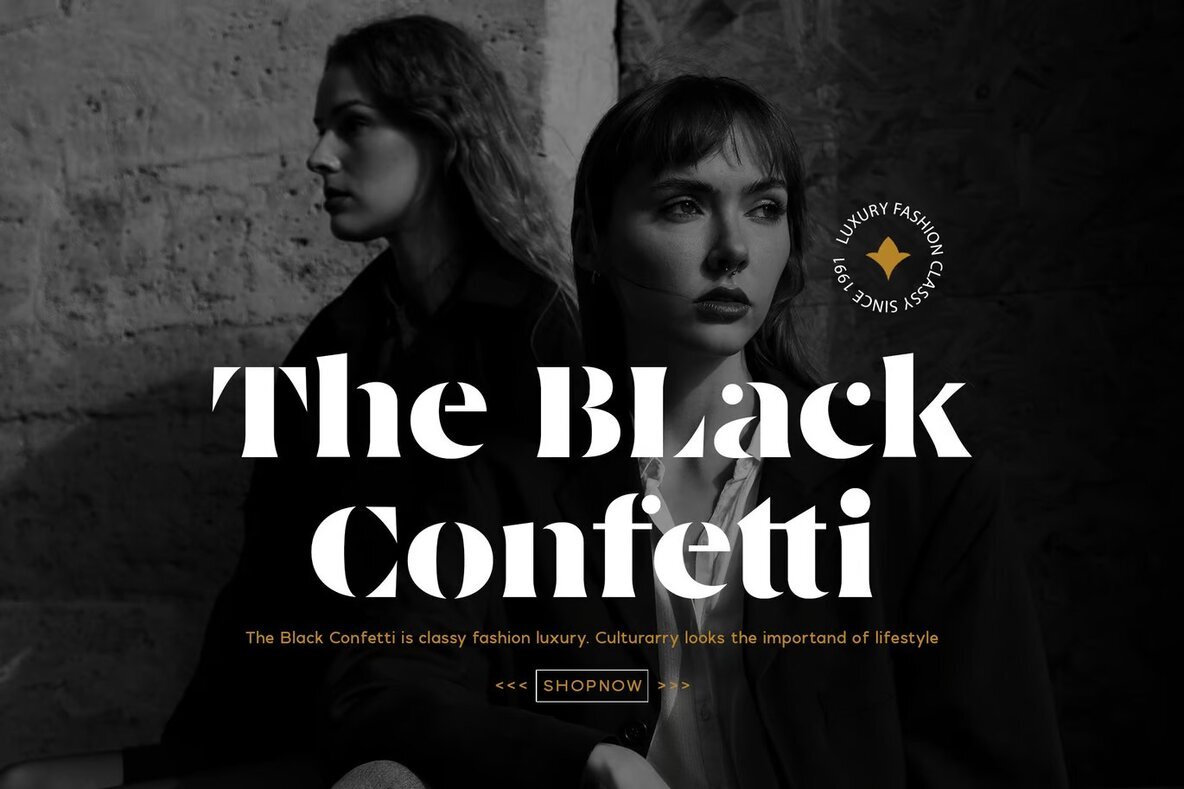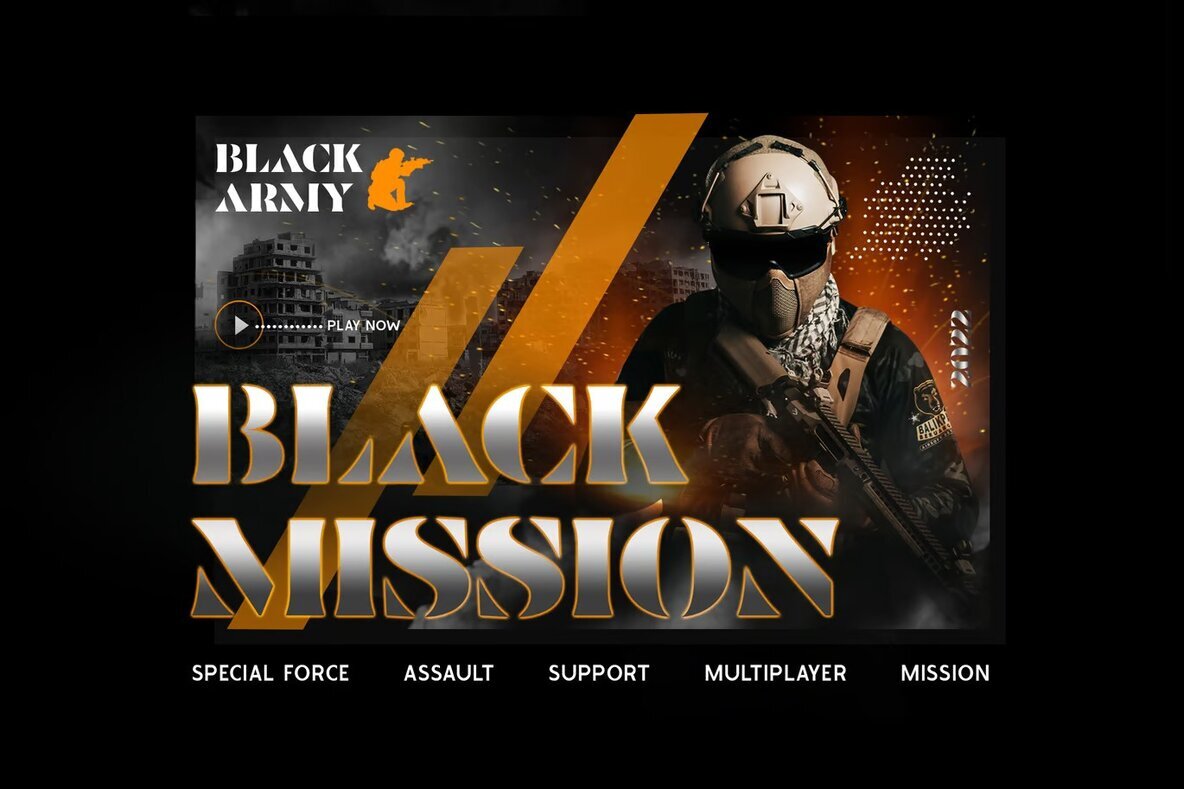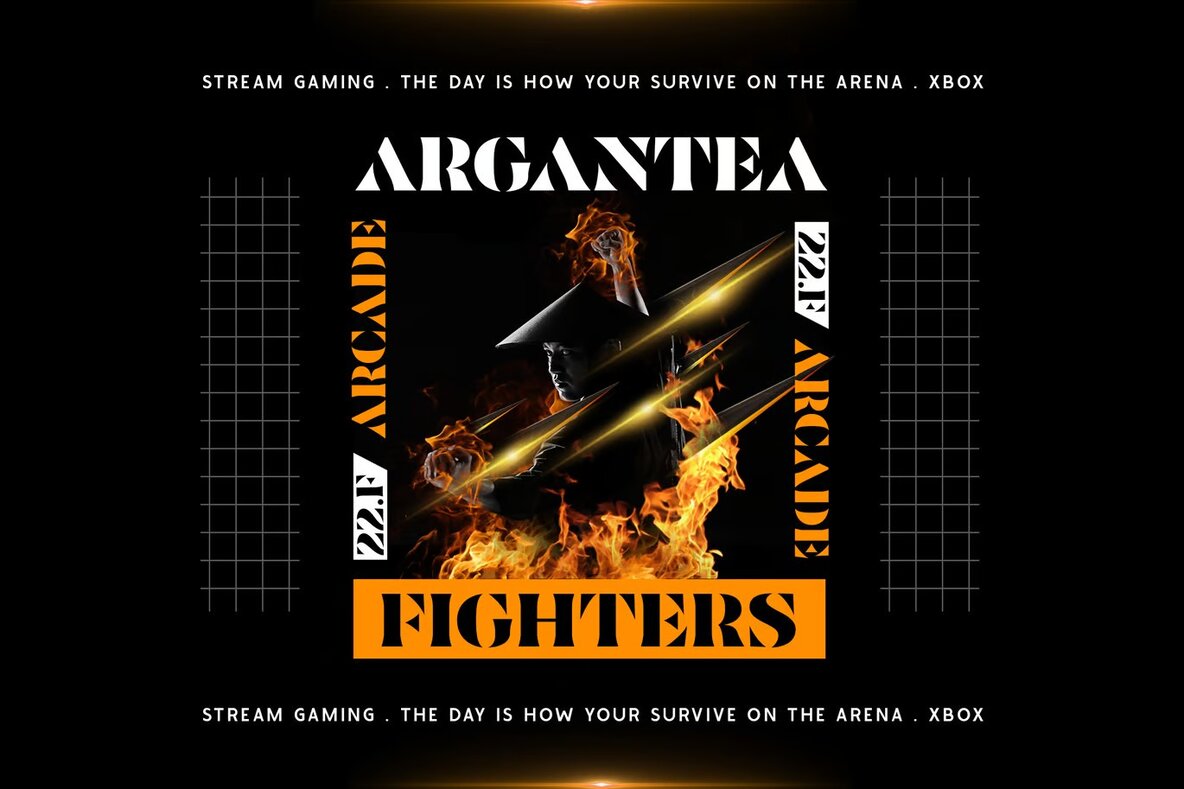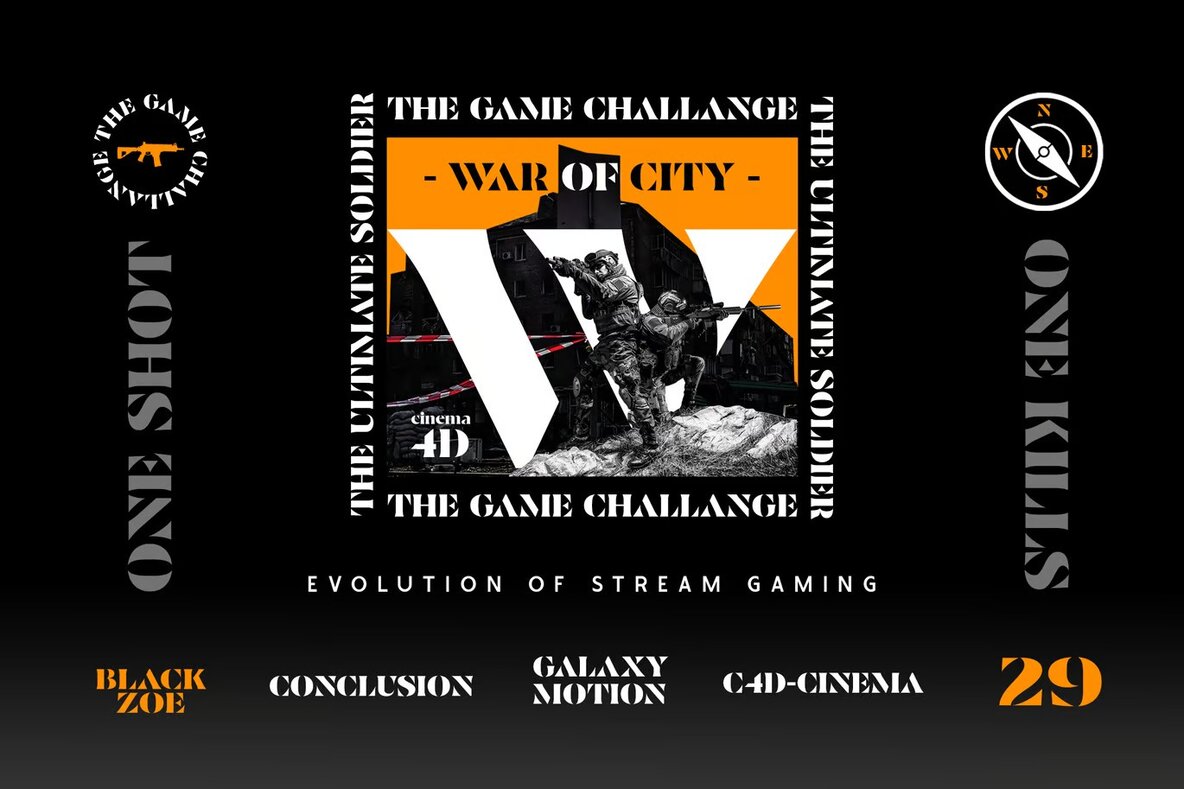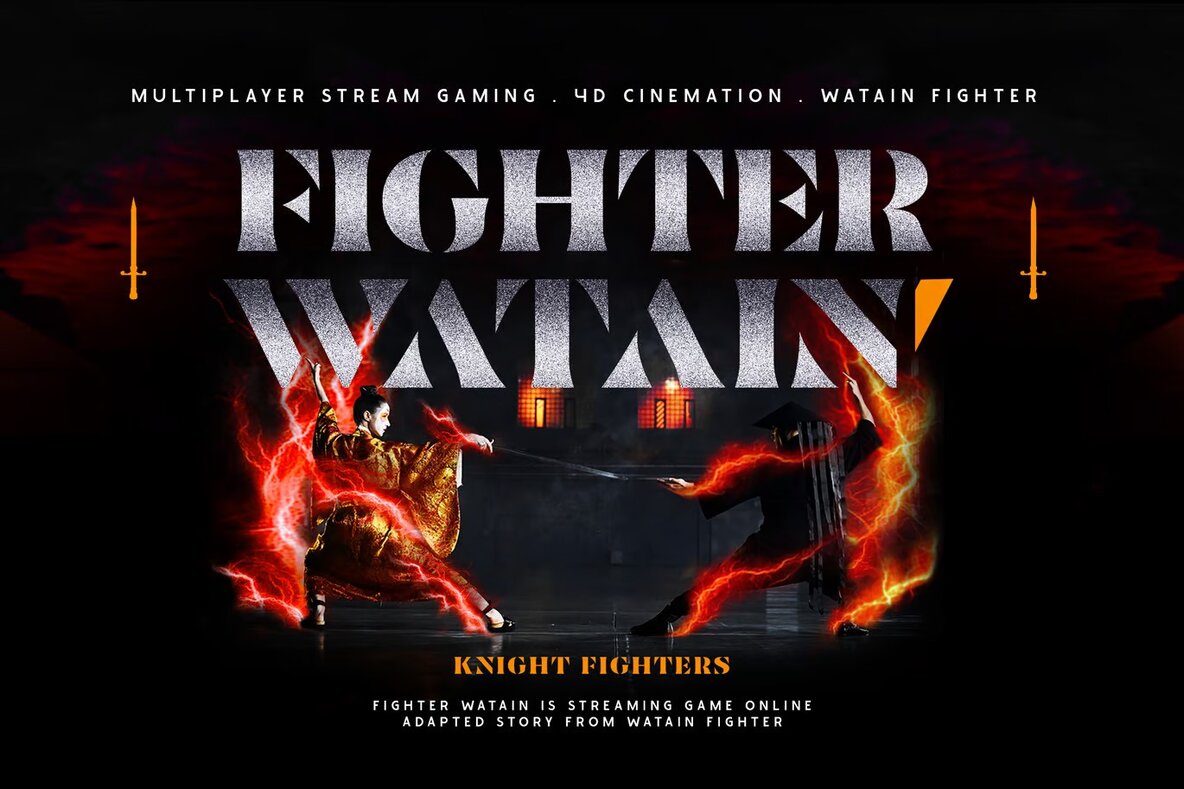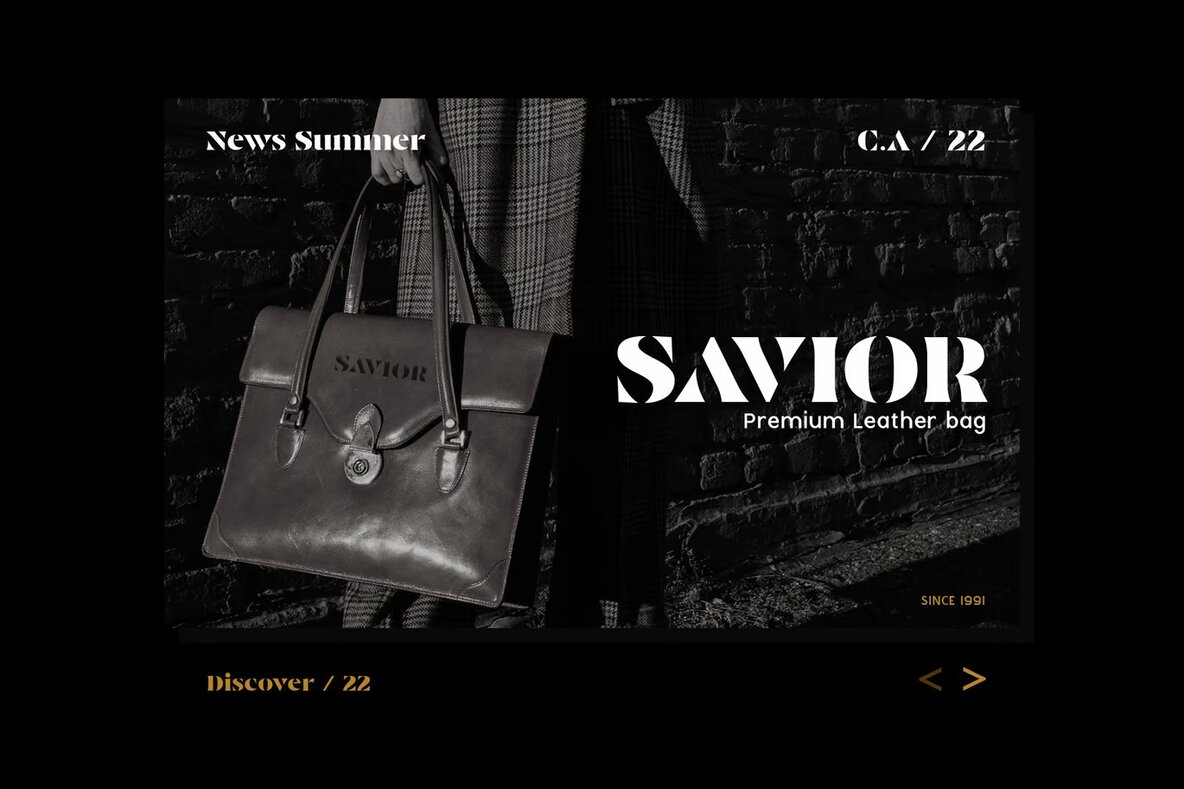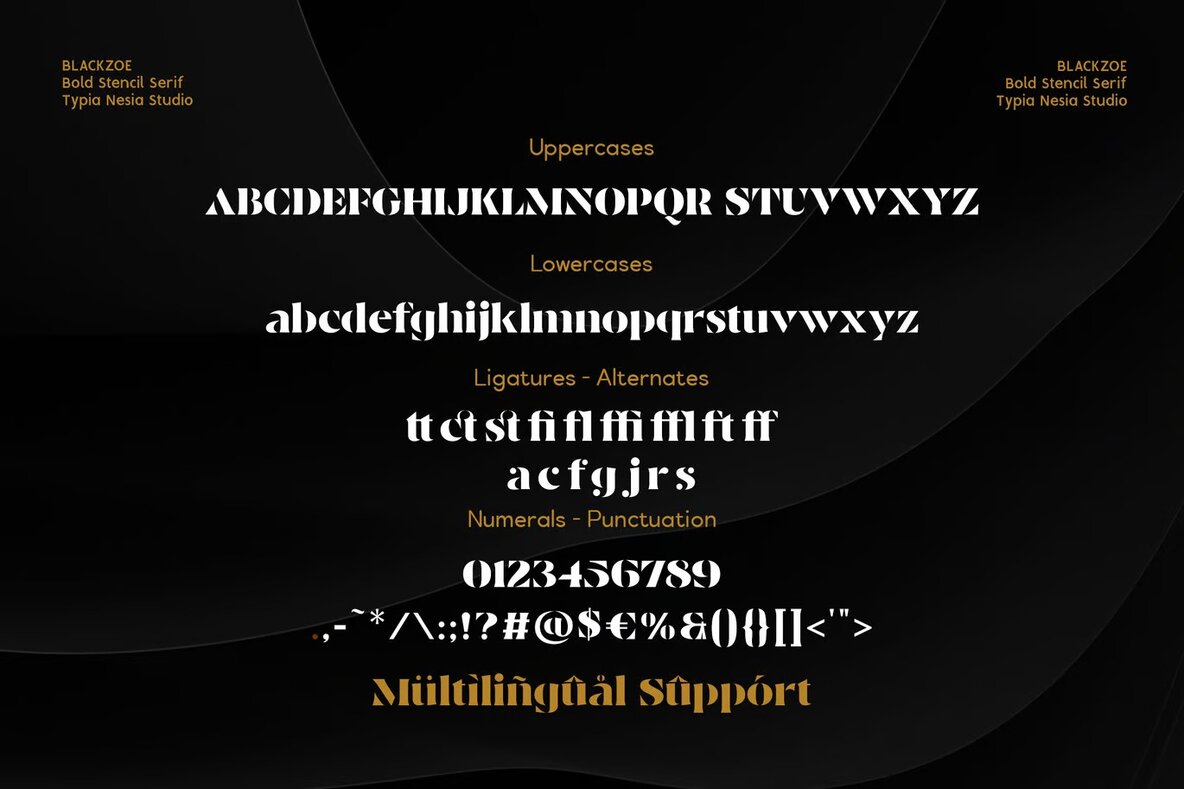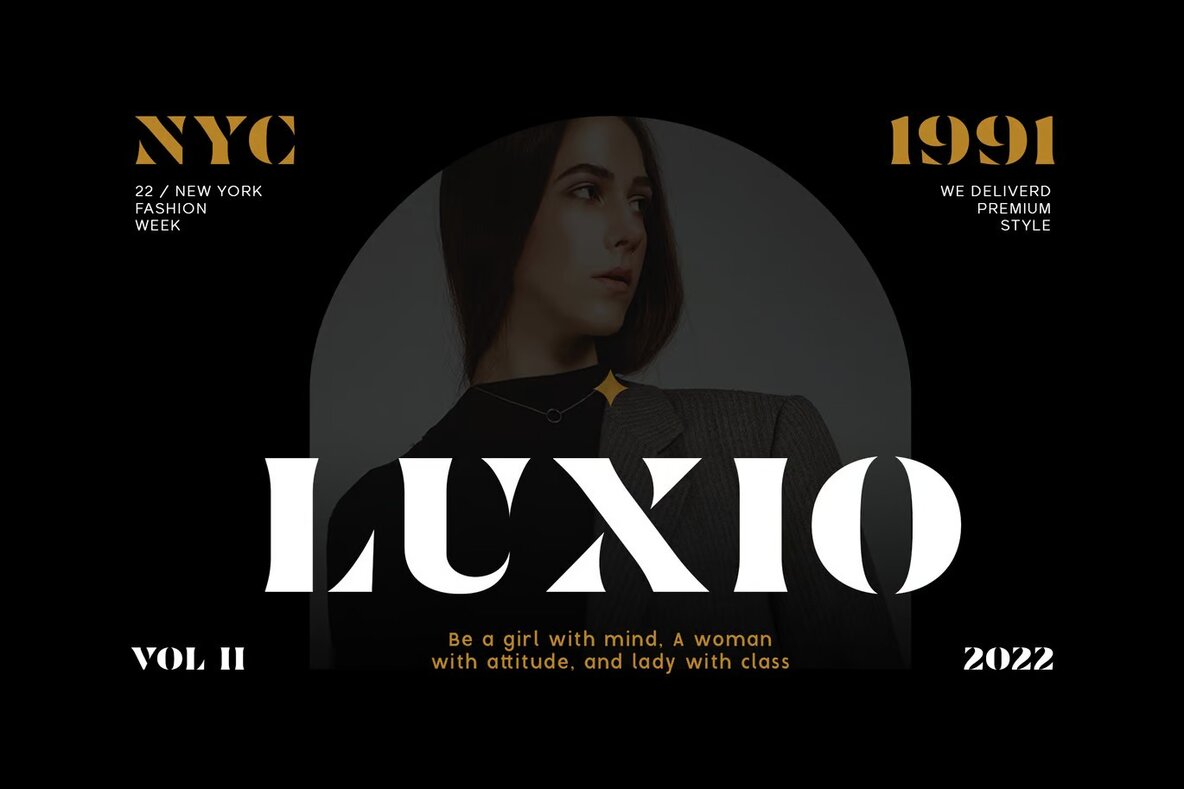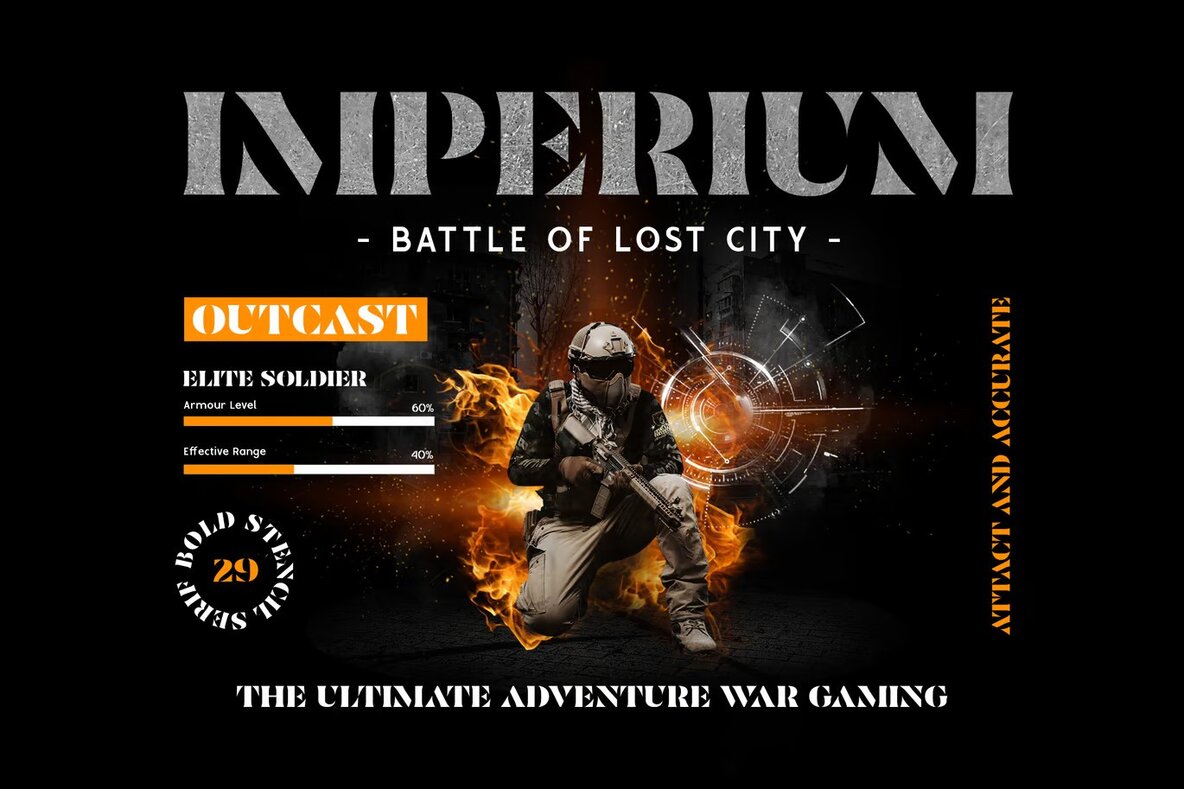
Blackzoe Font
Blackzoe Regular
Blackzoe is a modern bold stencil serif font ideal for an array of design projects. This font is perfect for luxury logos, branding, and classy editorial designs. Its bold, clean lines make it an excellent choice for sport and game brands, fashion promotions, art galleries, museums, and architectural themes. Whether you're working on a historical project, adventure branding, or modern advertising, Blackzoe delivers a sophisticated edge to your designs.
This versatile font also adds a touch of elegance to stationery, blog designs, card invitations, and home decor. Ideal for book covers, special events, and art quotes, Blackzoe's distinctive style enhances the visual appeal of various projects. Its contemporary yet classic stencil serif design sets a bold tone that captures attention, making it an excellent choice for any designer looking to create striking and impactful visuals.